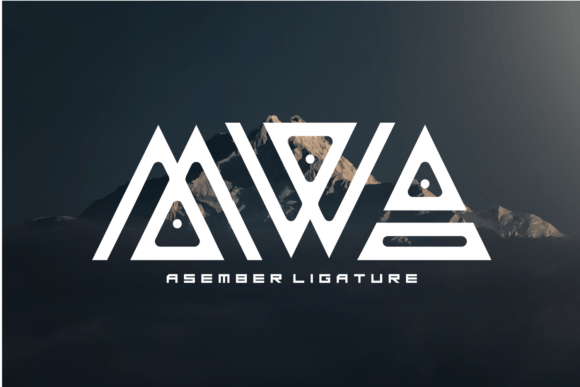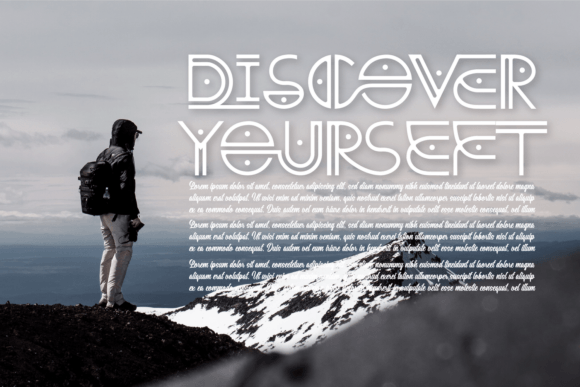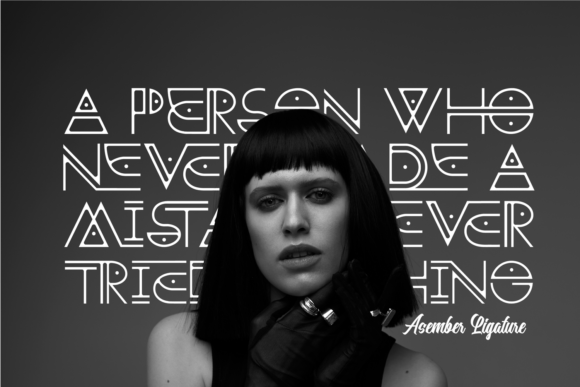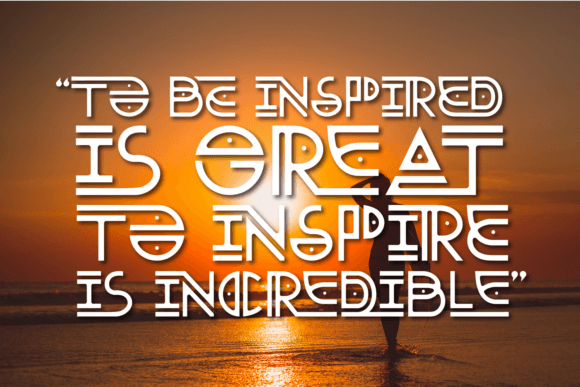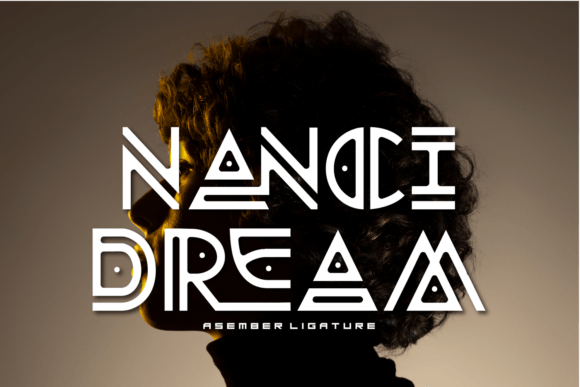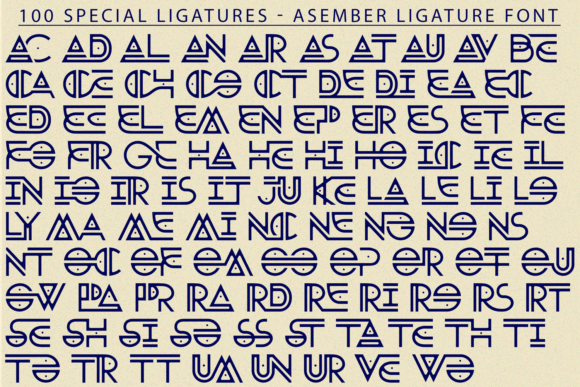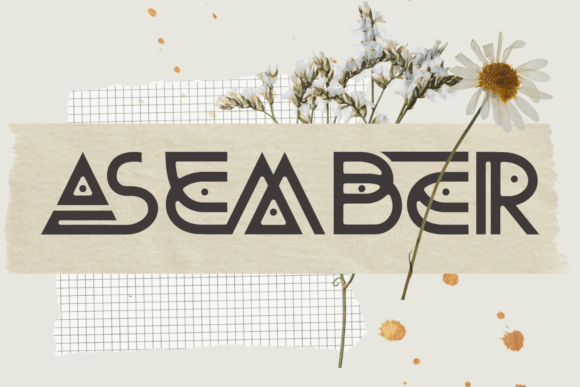
Introducing Asember Ligature Font: The Ultimate Choice for Modern Designs
In the world of typography, fonts play a crucial role in conveying the message and aesthetic of a design. For designers and crafters, finding the perfect font that combines elegance, modernity, and futurism can be a daunting task. However, with the introduction of Asember Ligature Font, the search is over. This modern, elegant, and futuristic font is inspired by the visual technology found in logos, sci-fi movies, games, and gadgets, making it the ultimate choice for various design projects.
What is Asember Ligature Font?
Asember Ligature Font is a cutting-edge typeface that embodies the essence of modern technology. Its sleek and futuristic design makes it perfect for a wide range of applications, including logo designs, posters, magazines, headlines, and many other creative projects. The font’s unique ligatures and stylish curves give it a distinctive look that sets it apart from other fonts.
Key Features of Asember Ligature Font
- Modern and Elegant Design: Asember Ligature Font boasts a modern and elegant design that is sure to impress. Its clean lines, precise curves, and futuristic aesthetic make it perfect for designs that require a touch of sophistication.
- Unique Ligatures: The font features unique ligatures that add a touch of personality to any design. These ligatures can be used to create stunning headlines, titles, and logos that stand out from the crowd.
- Versatile and Flexible: Asember Ligature Font is highly versatile and can be used for a wide range of design projects, from logos and posters to magazines and headlines.
- Inspired by Technology: The font’s design is inspired by the visual technology found in logos, sci-fi movies, games, and gadgets, making it perfect for designs that require a futuristic touch.
Use Cases for Asember Ligature Font
Asember Ligature Font is perfect for various design projects, including:
- Logo Designs: Create stunning logos that stand out from the crowd with Asember Ligature Font’s unique ligatures and futuristic design.
- Posters and Flyers: Use the font to create eye-catching posters and flyers that grab attention.
- Magazines and Brochures: Add a touch of elegance and sophistication to your magazines and brochures with Asember Ligature Font.
- Headlines and Titles: Use the font to create stunning headlines and titles that add a touch of futurism to your designs.
Why Choose Asember Ligature Font?
With so many fonts available, why choose Asember Ligature Font? Here are a few reasons:
- Unique Design: Asember Ligature Font has a unique design that sets it apart from other fonts.
- High-Quality: The font is of high quality, making it perfect for professional designs.
- Versatile: The font is highly versatile and can be used for a wide range of design projects.
In conclusion, Asember Ligature Font is the ultimate choice for designers and crafters looking for a modern, elegant, and futuristic font. Its unique design, high-quality, and versatility make it perfect for various design projects. Whether you’re creating logos, posters, magazines, or headlines, Asember Ligature Font is the perfect choice. So why wait? Download Asember Ligature Font today and take your designs to the next level!